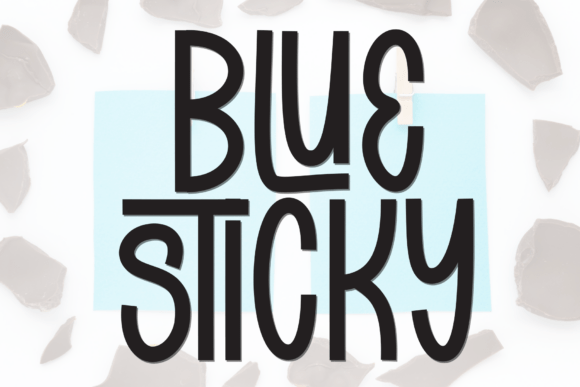
The Blue Sticky Font: A Quirky Display Font for Creative Projects
I’ll never forget the design project that led me to discover the Blue Sticky font. I was working on a DIY-themed branding campaign for a client who specialized in handmade crafts. The goal was to create a fun, approachable vibe that would appeal to a young audience. However, I was struggling to find the right font that would capture the playful essence of the brand. That was when I stumbled upon Blue Sticky, a tall, quirky display font that instantly resonated with the project’s tone.
First Impressions: A Review of Blue Sticky
What I Love About Blue Sticky ✨
- ✅ Unique and playful aesthetic: Blue Sticky’s hand-drawn design and irregular strokes give it a charming, creative feel that’s perfect for fun headlines and DIY-themed designs.
- ✅ Clean readability: Despite its quirky nature, Blue Sticky remains surprisingly readable, making it suitable for both digital and print projects.
- ✅ PUA encoded for easy access: The font comes with PUA encoding, allowing effortless access to all glyphs, swashes, and alternate characters.
- ✅ Versatile and adaptable: Blue Sticky can be used for a wide range of projects, from kids’ products to crafty branding, and even fun headlines.
While Blue Sticky is an excellent font, there are a few minor quirks to be aware of:
- 🤔 Some characters may require manual adjustment: Due to the font’s hand-drawn nature, certain characters might need manual adjustment to ensure proper spacing and alignment.
- ⚠️ Limited use for formal projects: Blue Sticky’s playful personality might not be suitable for formal or professional projects that require a more serious tone.
The Story Behind Blue Sticky
The story behind Blue Sticky is one of creativity and experimentation. According to the font’s designer, Blue Sticky was inspired by the imperfections and quirks of hand-drawn lettering. The designer wanted to create a font that would capture the playful essence of handmade crafts and DIY projects. Through a process of trial and error, Blue Sticky was born – a font that combines bold lines with a playful personality.